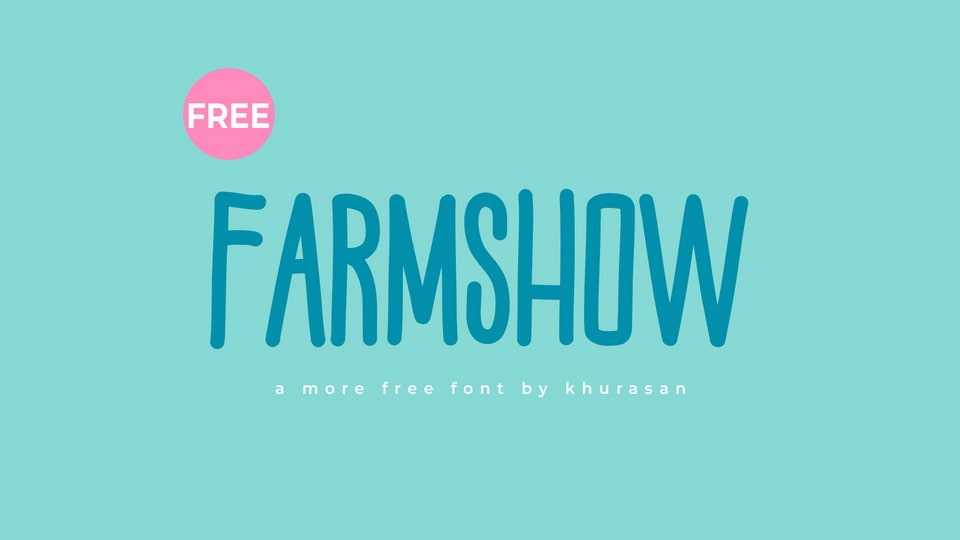
Download Farmshow font, a playful and tall hand-drawn typeface that takes creativity to new heights. Each letter in Farmshow font is a delightful dance of whimsical strokes, reaching upward with a playful elegance.